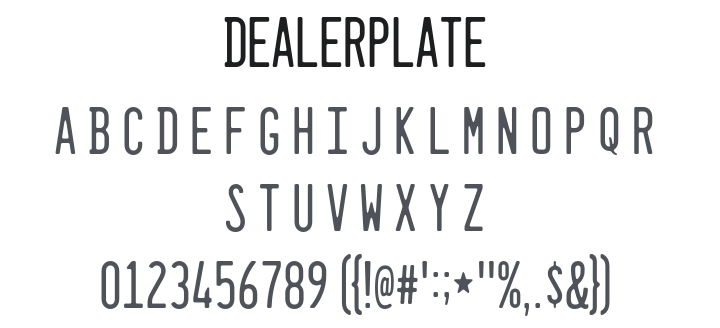
Dealerplate Font
About Dealerplate
Dealerplate is an authentic collection of North American license plate typefaces, rebuilt from real embossed designs across 17 U.S. states and Canadian provinces. Each style preserves the regional quirks of its source; from California’s relaxed spacing to Michigan’s industrial grit, refined for modern use with balanced proportions and softened edges that mimic stamped metal. Turning off kerning recreates the original plate feel, while optional features include Greek, Cyrillic, fractions, and symbols for added flexibility. Ideal for film, automotive branding, packaging, or editorial work, Dealerplate captures genuine highway character with professional precision.